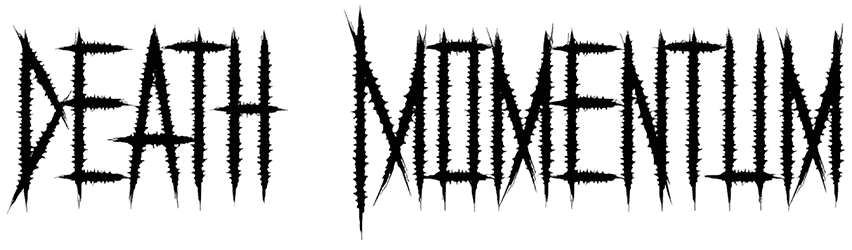
Death Momentum Font
Death Momentum font feels like it was dragged through a horror scene and still had the nerve to look stylish. The letters are sharp, distressed, and dramatic enough to make a plain word feel like a threat. You don’t use this death metal font when you want your design to behave; you use it when the title needs to jump first.
Try it on survival game covers, Halloween posters, metal gig flyers, thriller book titles, haunted attraction banners, or gritty YouTube thumbnails. Add fog, cracked textures, red lighting, or a damaged photo background, and the Death Momentum font will carry the whole nightmare without needing extra decoration.